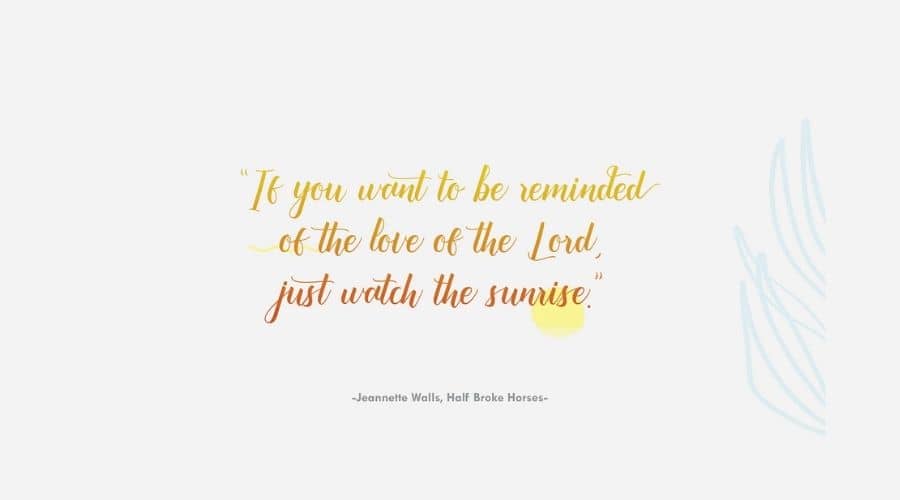
Sweet Dream Calligraphy Font
Sweet Dream Font is a straightforward calligraphy font with capital, lowercase, and symbols. The Font was designed and published by tri studio. The Font was uploaded on August 19, 2019. Handmade calligraphic art Sweet Dreams Calligraphy Typeface is a contemporary display font with 81 flourish lowercases, 51 uppercases, and 27 ligatures. Sweet Dreams Font is one of those fonts you will want to use again and again since it is perfect for designers, bloggers, and anyone who likes handwriting calligraphy. Drawn by hand Sweet Dreams Font is set to standard keyboard keys.
Sweet Dream is a wonderful handwritten font with a touch of beauty that has been painstakingly designed. This great Font works well for headlines of various sizes and text blocks with both maximum and minimum variants. Sweet Dream will look amazing on the web, in print, on video, and in any other medium.
The beautiful Calligraphy Font is also great for logos, branding, invitations, stationery, wedding designs, logos, business cards, covers, t-shirts, social media posts, and more. It will also be utilized to generate a stunning images and text in a variety of colours and styles.
| Style | Script, Calligraphy |